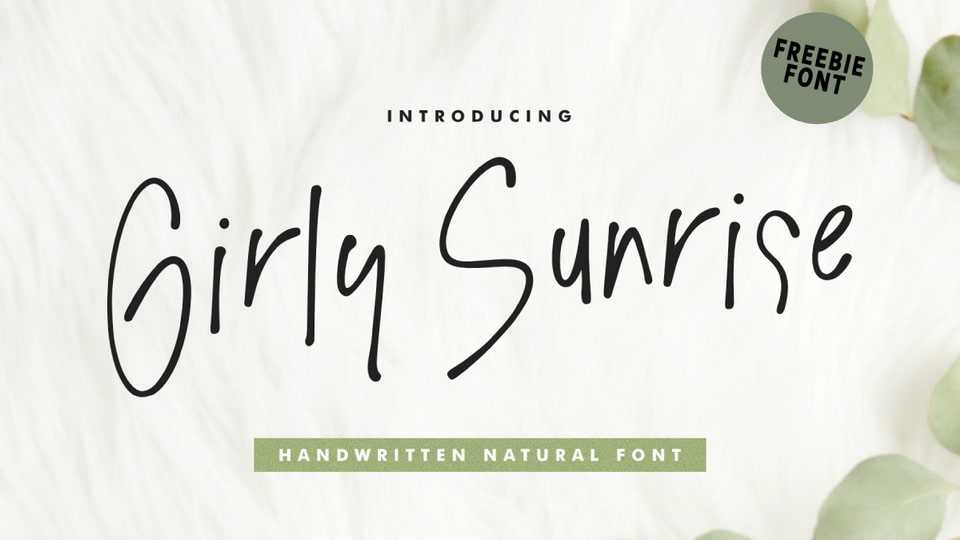
Download Girly Sunrise font, a dreamy and graceful typeface that will breathe life into your designs! With its elegant strokes and feminine charm, Girly Sunrise font is perfect for adding a touch of whimsy and sophistication to your projects.